Sans Serif Text, Without Limits
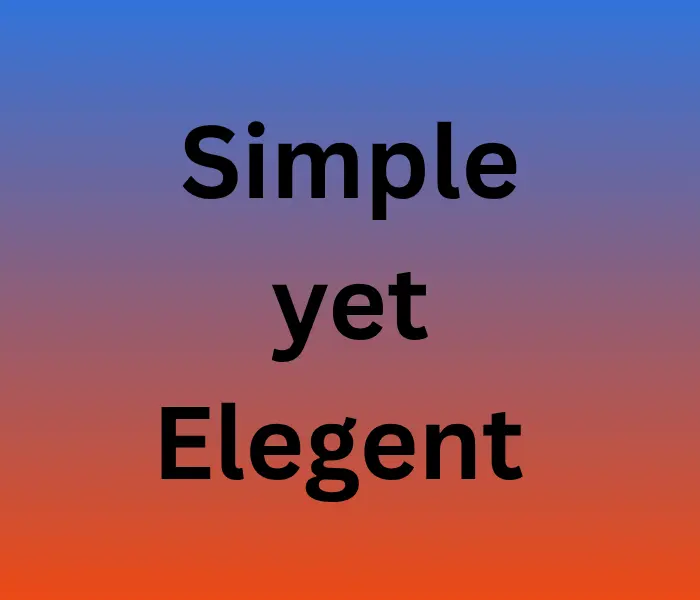
What Makes Sans Serif Unicode Fonts Special?
Sans serif fonts are known for their simplicity—no extra strokes, just pure clarity. When combined with Unicode characters, they become powerful styling tools that work across all digital platforms, from Instagram to websites, without needing any special downloads or font installations.
With Unicode-based sans serif styles, you can:
- Maintain compatibility across devices and browsers Achieve
- a clean and modern look with zero design hassle